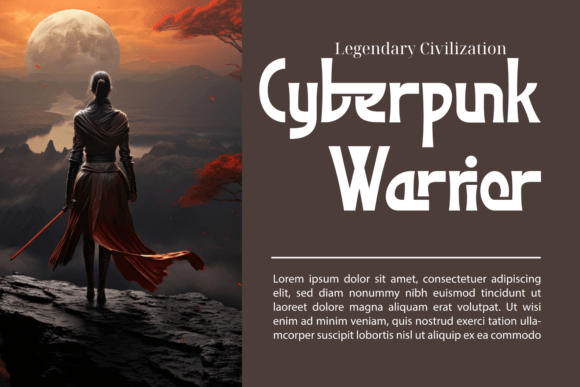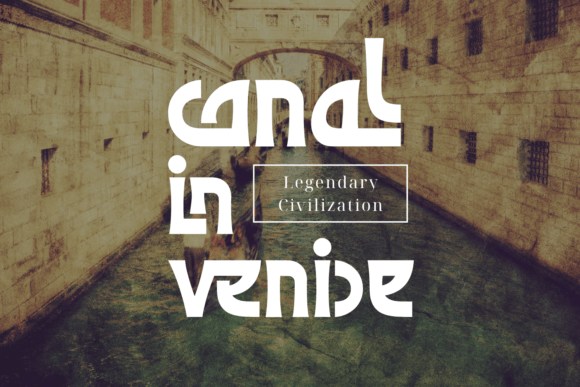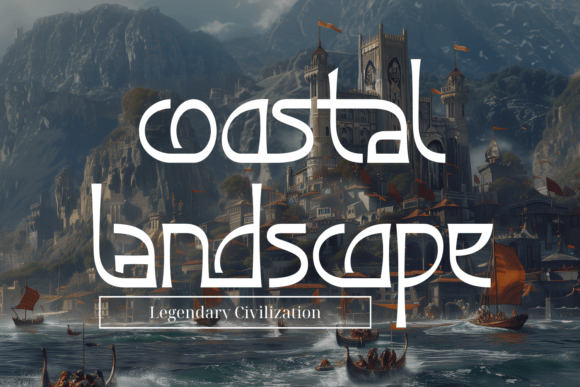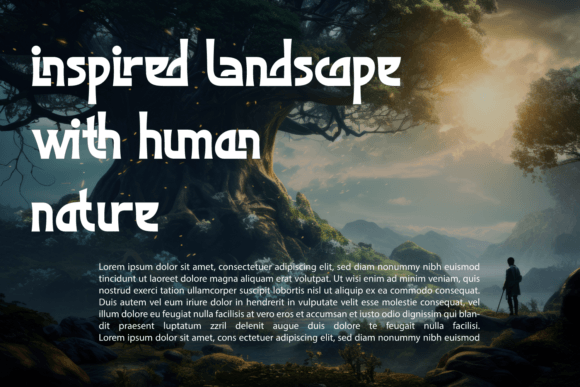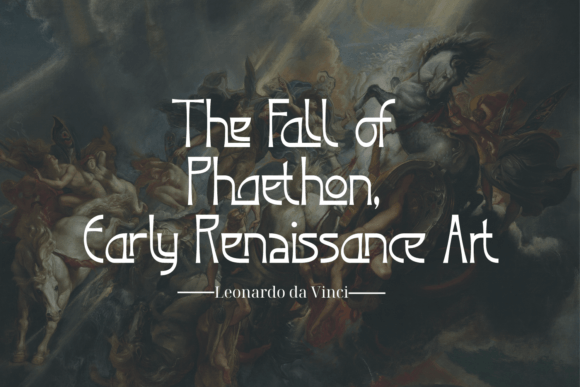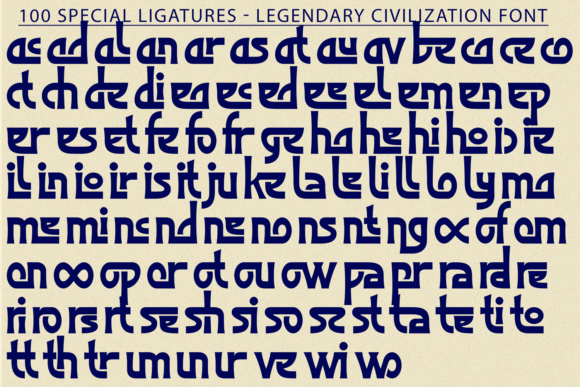
Introduction to Legendary Civilization Font Font
Fonts play a crucial role in design, and the Legendary Civilization Font font is a typeface that brings both character and versatility to any project. Whether you’re working on a branding project, a website, or a print design, the Legendary Civilization Font font offers a unique style that can elevate your work.
Legendary Civilization is a modern and unique display font with a nostalgic twist.
Add it to your creative projects and you will impress any audience .
Key Features of Legendary Civilization Font Font
Why Choose Legendary Civilization Font Font?
The Legendary Civilization Font font is more than just a typeface – it’s a design tool that helps you communicate your message with style and clarity. Its unique character set and versatile design make it suitable for a wide range of applications, from elegant invitations to bold headlines.
With its carefully crafted letterforms and balanced proportions, the Legendary Civilization Font font ensures readability and visual appeal across all mediums.
What makes Legendary Civilization Font font special?
The Legendary Civilization Font font stands out with its unique design, exceptional readability, and versatility across various design applications.